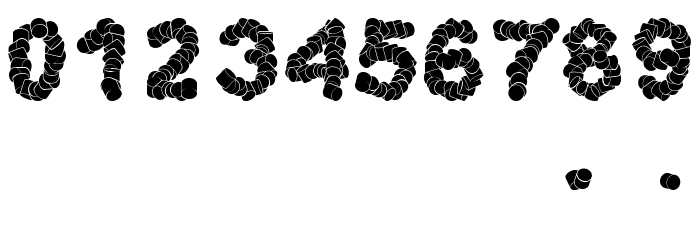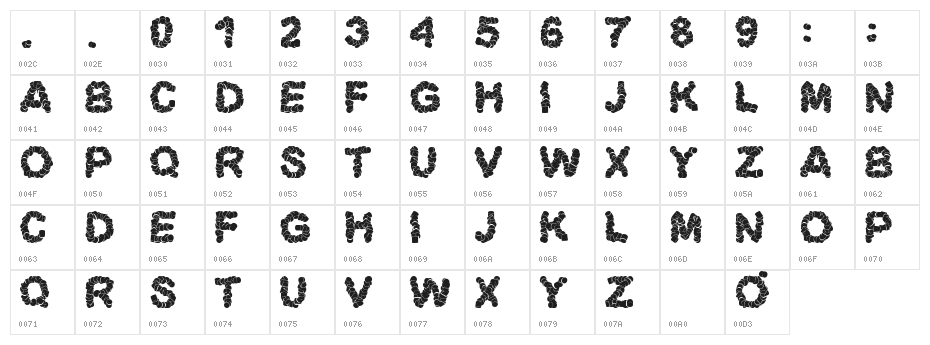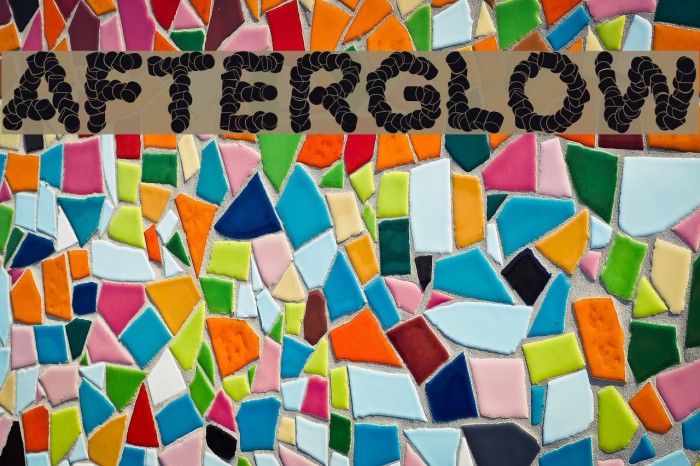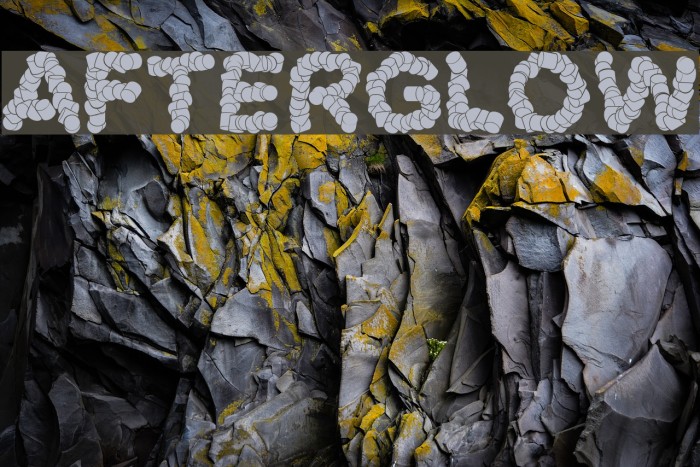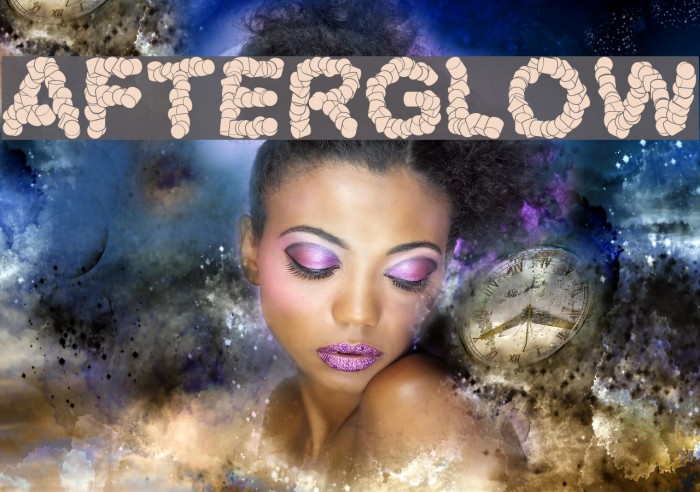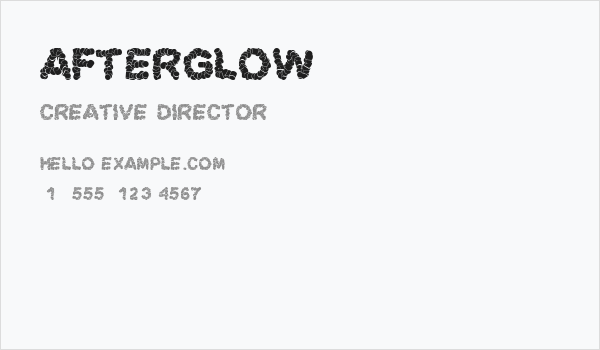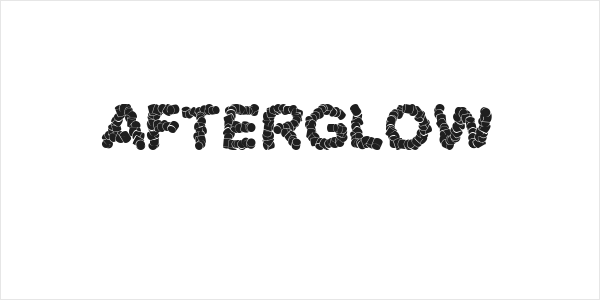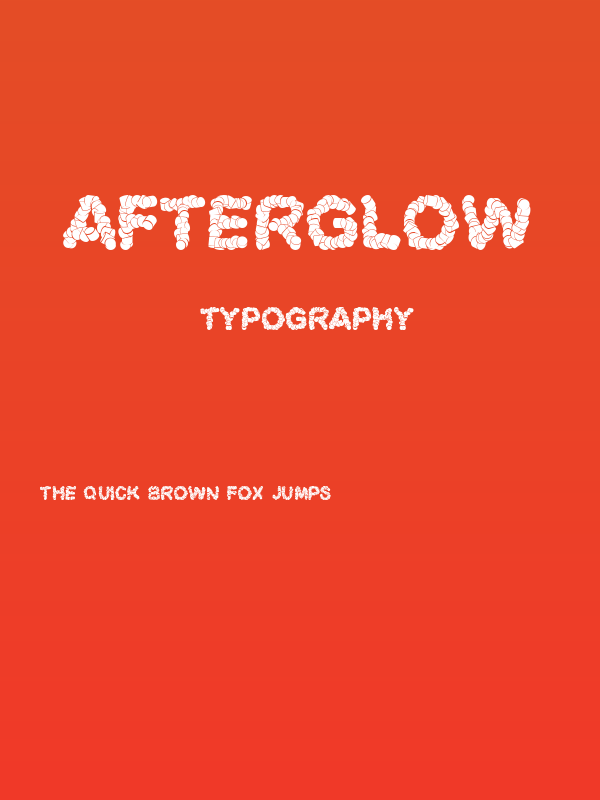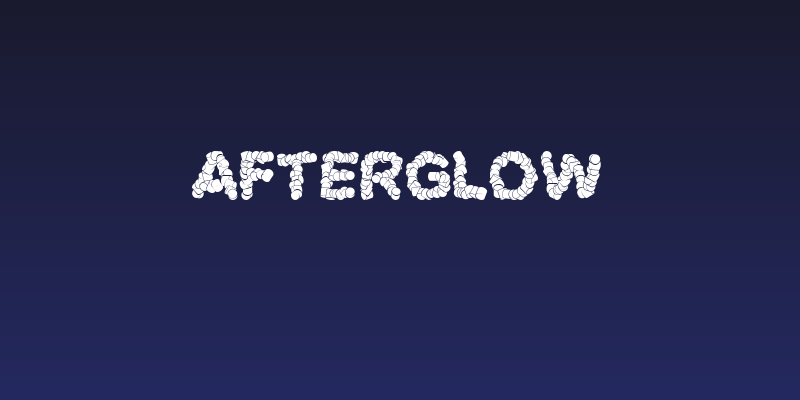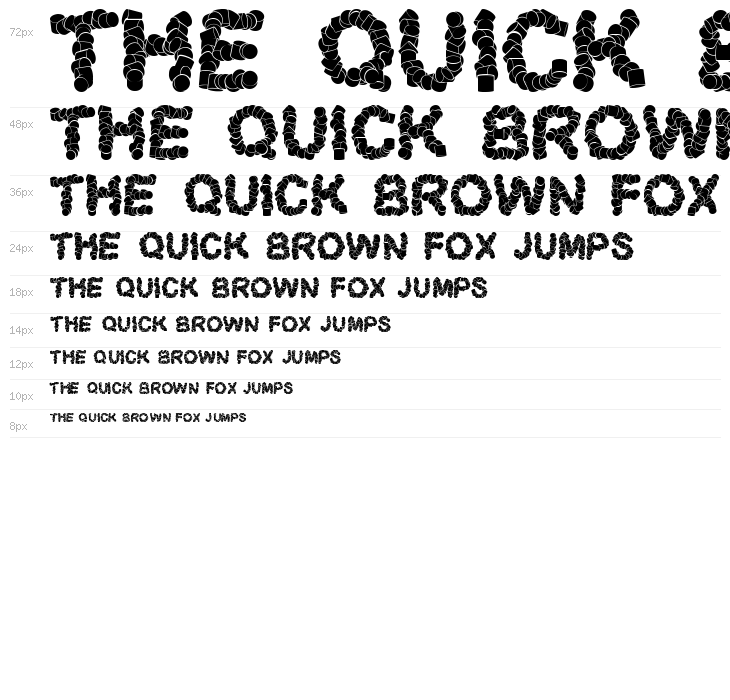
afterglow Font
afterglow Description
This font features a unique and playful design, characterized by its decorative and textured appearance. Each character is composed of overlapping circular shapes, creating a sense of movement and depth. The font maintains a consistent thickness throughout, contributing to its bold and eye-catching style. The rounded edges and intricate detailing make it stand out, offering a whimsical and artistic vibe. This font is particularly suitable for creative projects where a distinctive and engaging look is desired.
| Proposed Projects | Ideal for posters, album covers, children's book titles, and creative branding. |